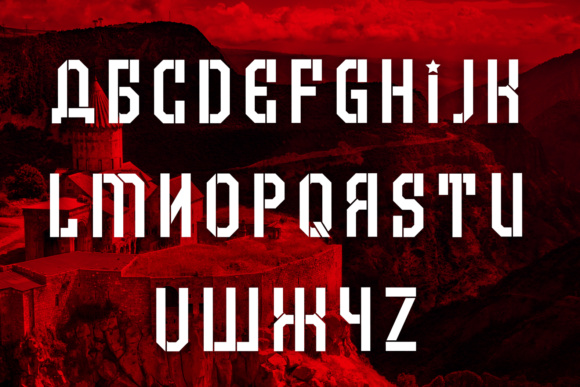
Discover the Unique Charm of Armenia Font
Are you a designer or crafter looking for a font that adds a touch of vintage elegance to your projects? Look no further than the Armenia Font, a striking font family in an old Russian style that’s perfect for t-shirts, banners, headlines, and more. In this article, we’ll dive into the world of Armenia Font, exploring its features, uses, and benefits for creatives.
What is Armenia Font?
Armenia Font is a distinctive font family inspired by traditional Russian typography. Its unique design combines classic elements with a hint of nostalgia, making it an excellent choice for projects that require a vintage or retro feel. The font’s bold and ornate style is sure to grab attention, adding a touch of sophistication to any design.
Key Features of Armenia Font
• Old Russian style: Armenia Font is deeply rooted in traditional Russian typography, giving it a distinctive and authentic look.
• Versatile: This font family is perfect for a wide range of projects, from t-shirts and banners to headlines and more.
• High-quality design: Armenia Font features intricate details and a bold style, ensuring it stands out in any design.
• Easily readable: Despite its ornate design, Armenia Font remains easily readable, making it suitable for both headlines and body text.
Uses of Armenia Font
Armenia Font’s versatility makes it an excellent choice for various design projects. Here are some ideas to get you started:
• T-shirts and apparel: Add a touch of vintage elegance to your t-shirt designs with Armenia Font.
• Banners and posters: Create eye-catching banners and posters with Armenia Font’s bold and ornate style.
• Headlines and titles: Use Armenia Font to add a touch of sophistication to your headlines and titles.
• Branding and logos: Armenia Font can be used to create unique and memorable logos for businesses and brands.
Benefits of Using Armenia Font
So, why choose Armenia Font for your design projects? Here are some benefits to consider:
• Unique and distinctive: Armenia Font’s old Russian style sets it apart from more traditional fonts, giving your designs a unique edge.
• High-quality design: The font’s intricate details and bold style ensure it looks great in any design.
• Versatile: This font family can be used for a wide range of projects, from print to digital designs.
Tips for Using Armenia Font
To get the most out of Armenia Font, here are some tips to keep in mind:
• Use it sparingly: Armenia Font’s bold style can be overwhelming if overused. Use it sparingly to create emphasis and add visual interest.
• Pair it with complementary fonts: Combine Armenia Font with simpler fonts to create a balanced and harmonious design.
• Experiment with colors and textures: Armenia Font looks great in a variety of colors and textures. Experiment to find the perfect combination for your design.
Armenia Font is a striking font family that adds a touch of vintage elegance to any design project. Its unique old Russian style, versatility, and high-quality design make it an excellent choice for designers and crafters. Whether you’re creating t-shirts, banners, headlines, or more, Armenia Font is sure to grab attention and leave a lasting impression. So why not give it a try and discover the unique charm of Armenia Font for yourself?